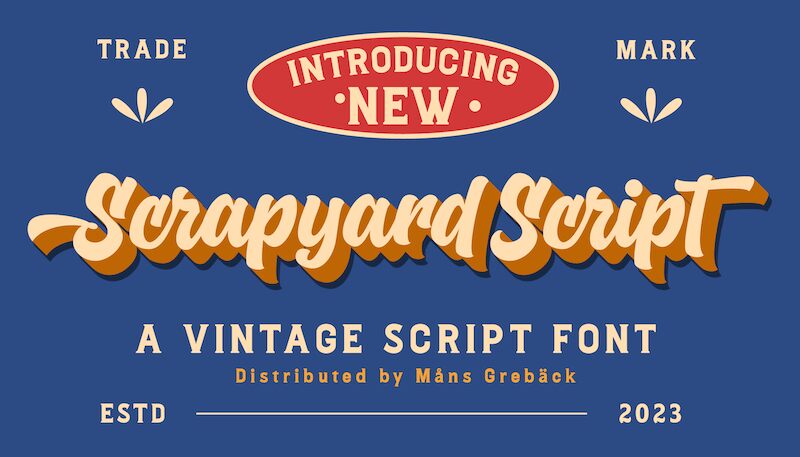
Scrapyard Script, designed by Mans Greback, is a bold vintage brush font that captures the essence of handcrafted charm. With its rough edges and expressive strokes, this typeface is perfect for projects seeking a rebellious and nostalgic feel. Whether you're designing album covers for rock bands, creating retro-inspired logos for breweries, or crafting eye-catching posters for art galleries - Scrapyard Script's boldness and vintage appeal will bring your work to life. Embrace the raw energy of this font and let it add a touch of authenticity to your diverse range of creative projects.
Scrapyard Script is a bold, heavy font with a cool and funky vibe that captures the essence of street style and urban culture.